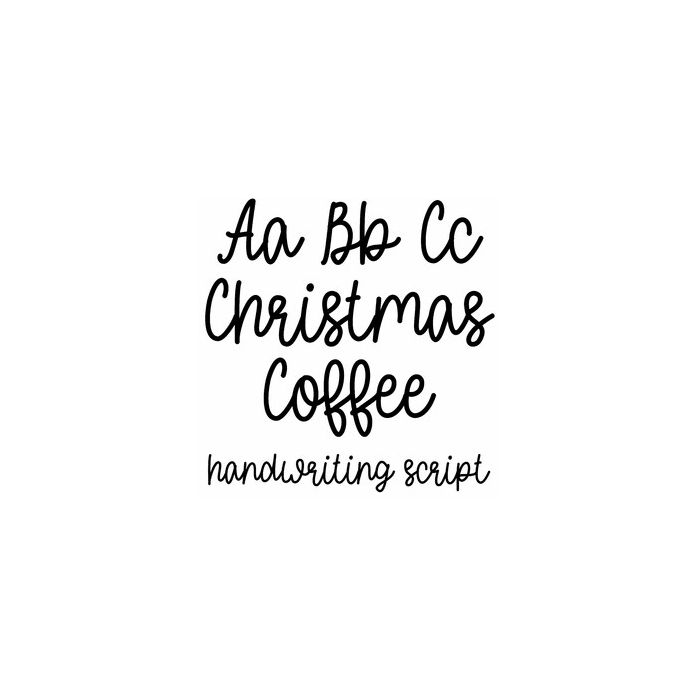
Christmas Coffee is a cute handwriting script font for Holiday crafts, gifts, cards, planners, signs, and personalization projects. Includes alphabet, numbers, and punctuation.